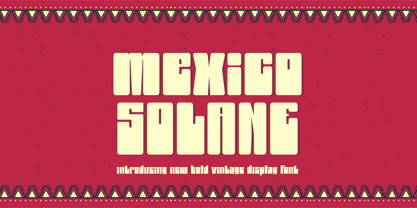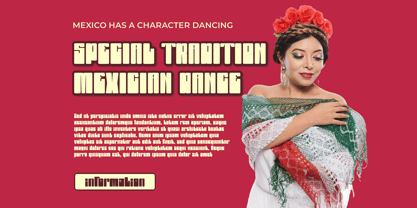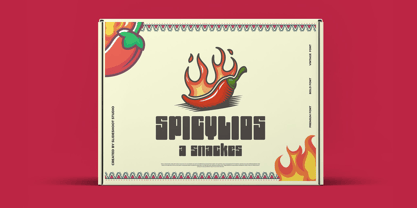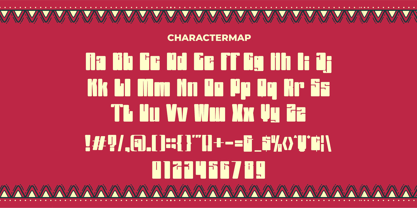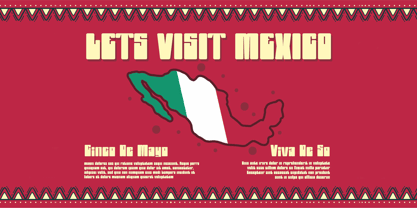
Mexico Solano
by Slide Shoot
The Mexico Solano Font Family was designed by Ahmad Riqi and published by Slide Shoot. Mexico Solano contains 1 styles. More about this family
Introducing Mexico Solano New Bold Unique Display Font is a modern, trendy, bouncy and cute display font. It has a unique character with wood theme. It is perfect to be combined with invitation card designs, company logos, movie titles, movie names, business cards, book titles, brand names and various other designs.
Designers: Ahmad Riqi
Foundry: Slide Shoot